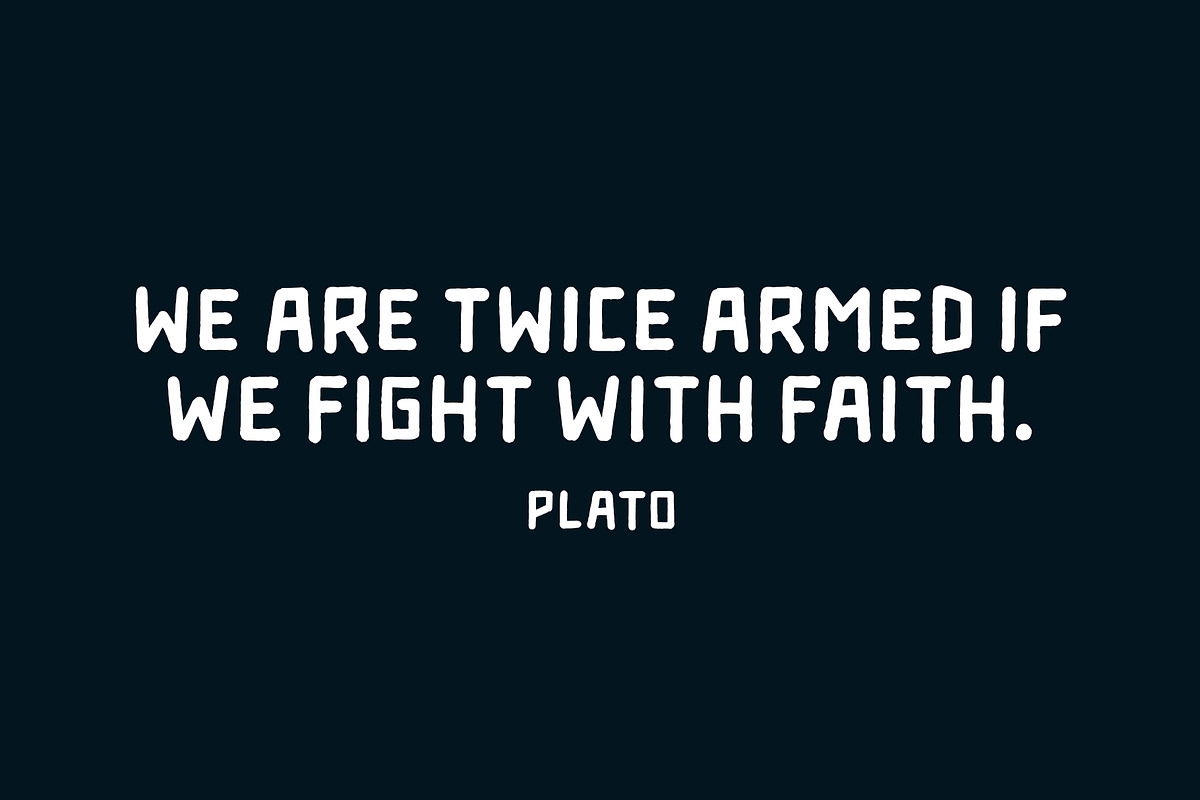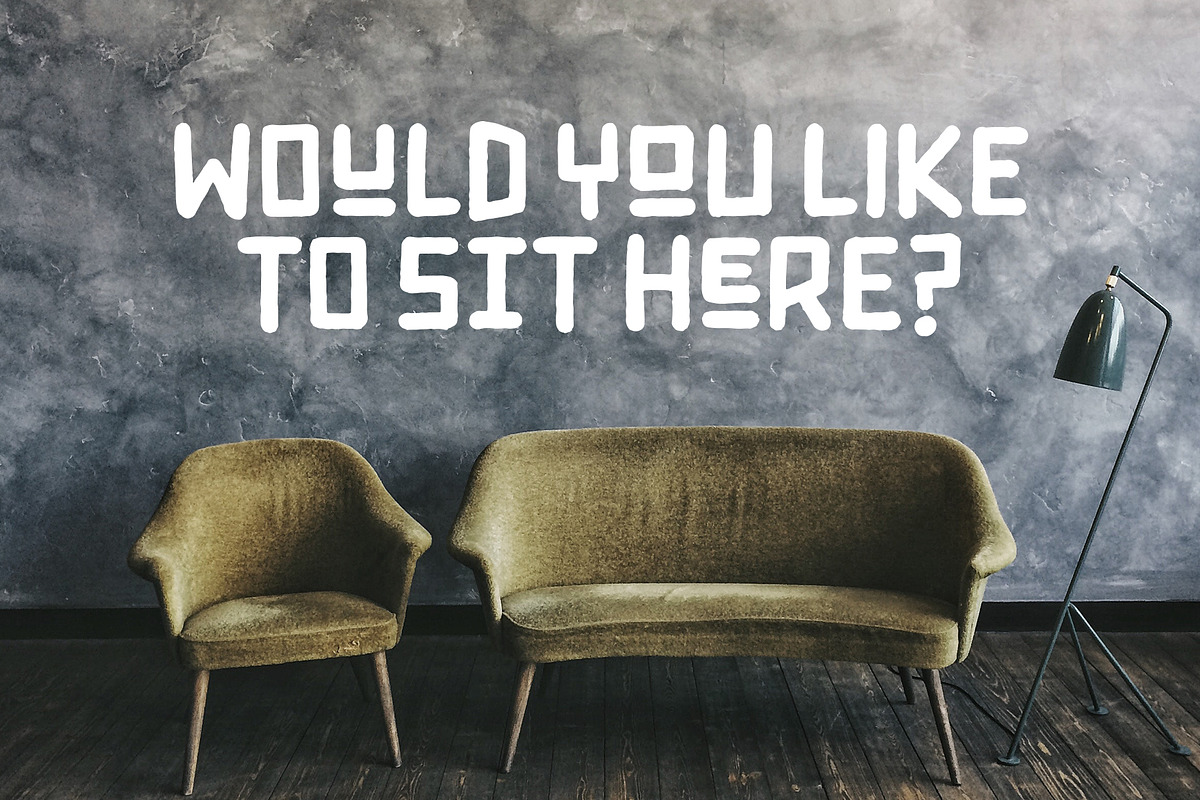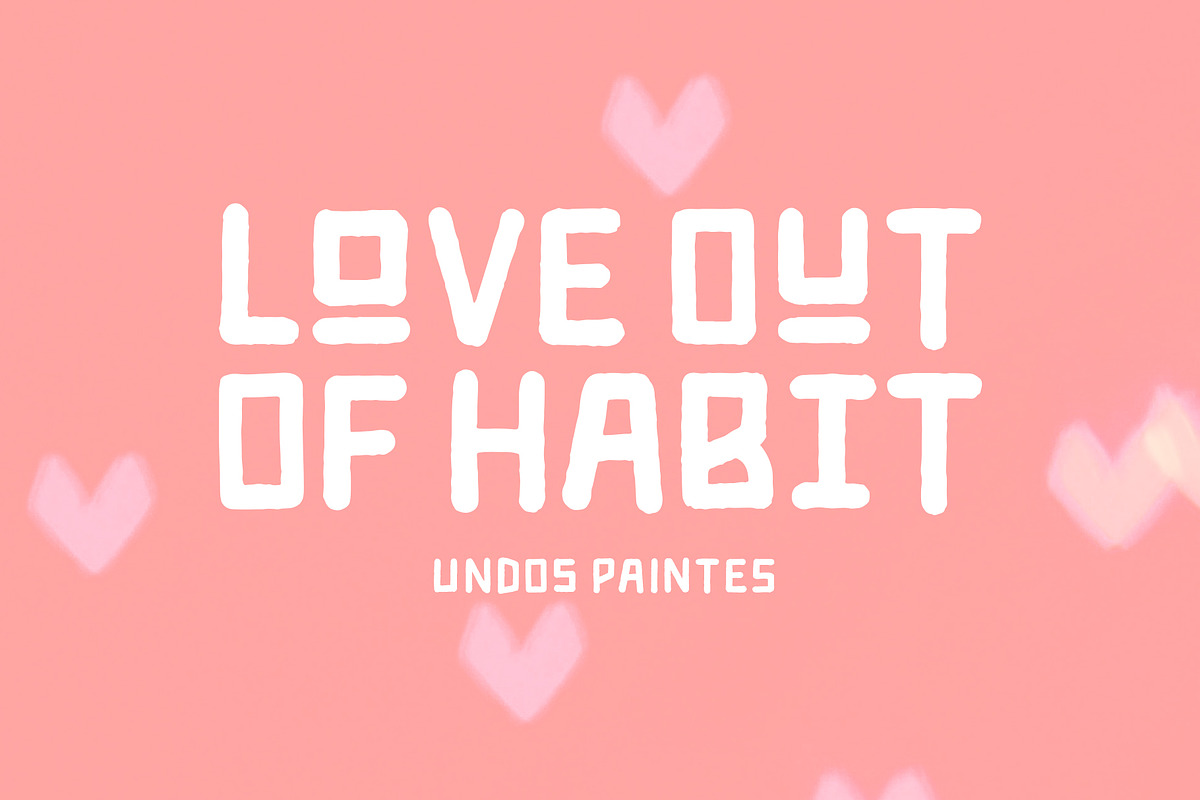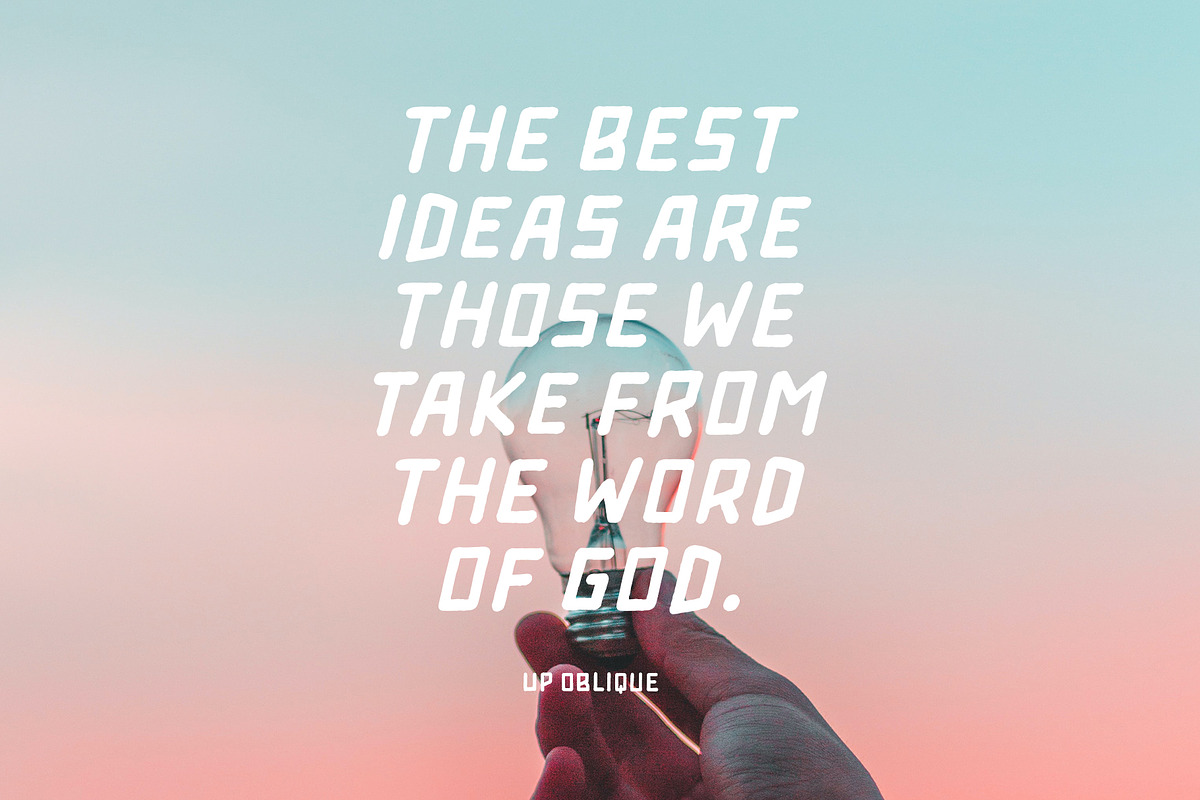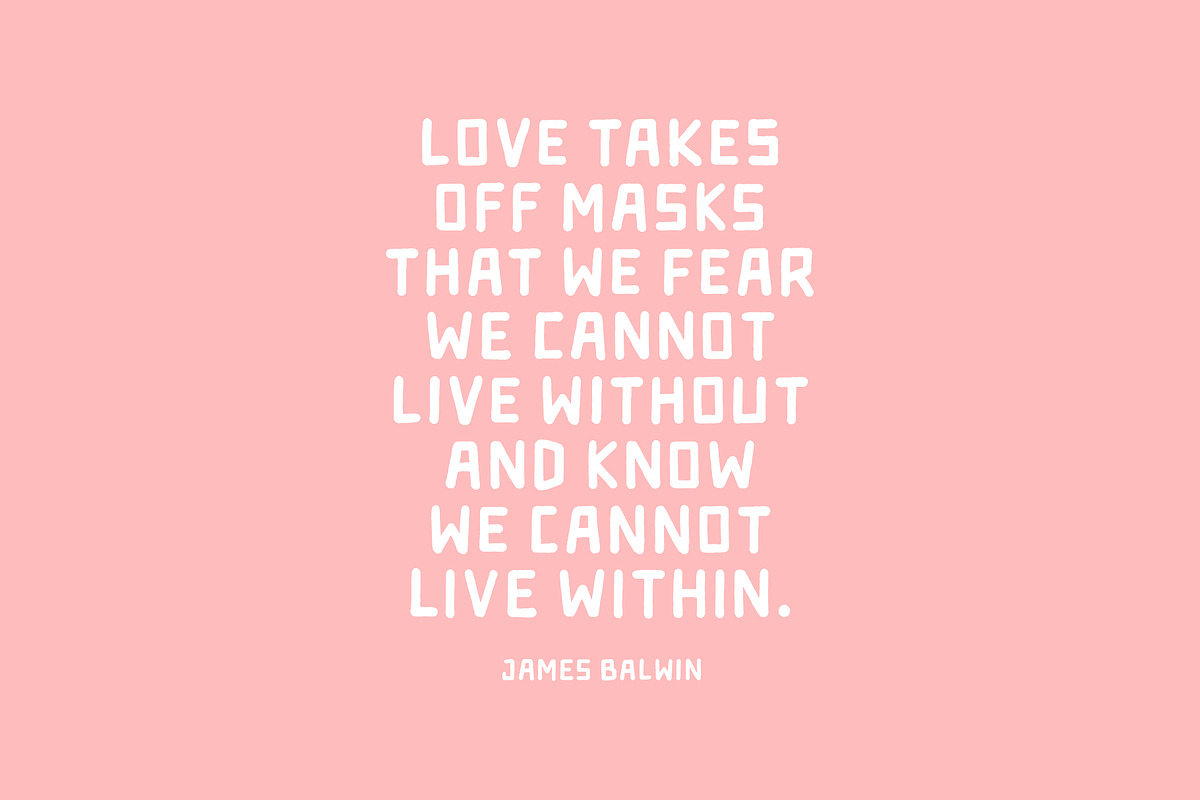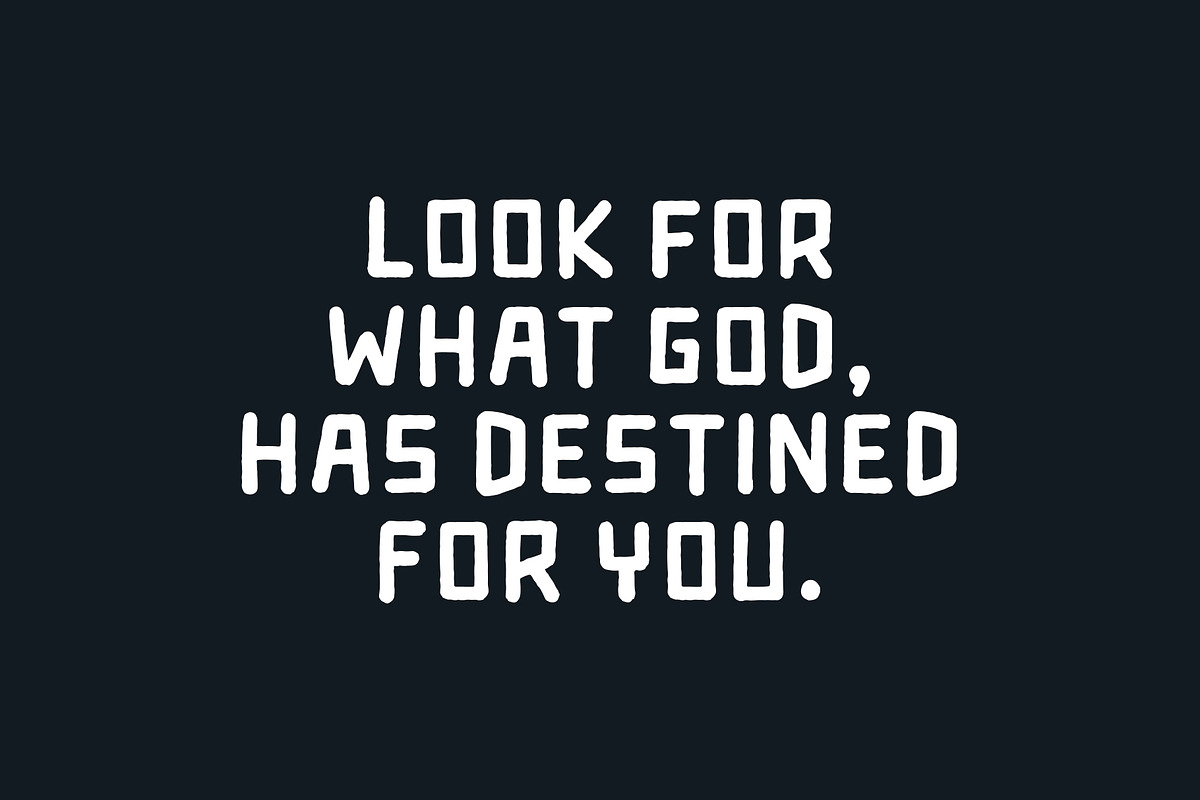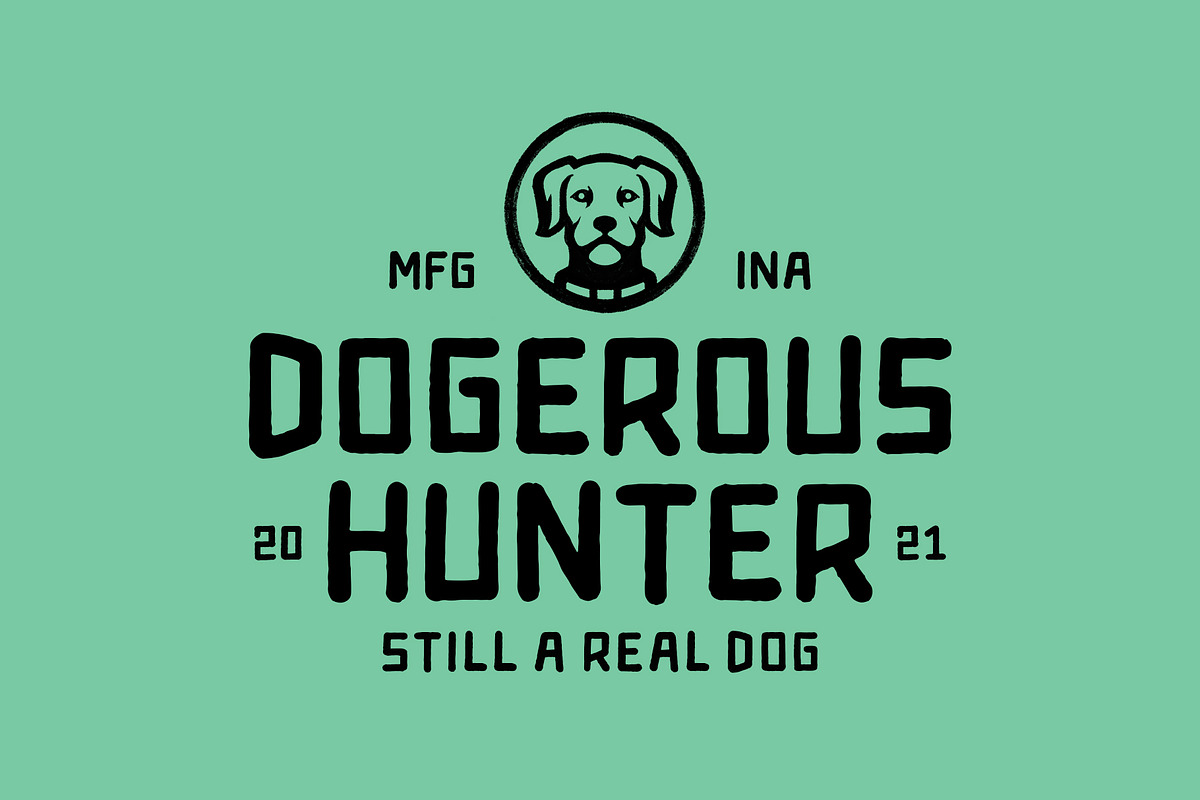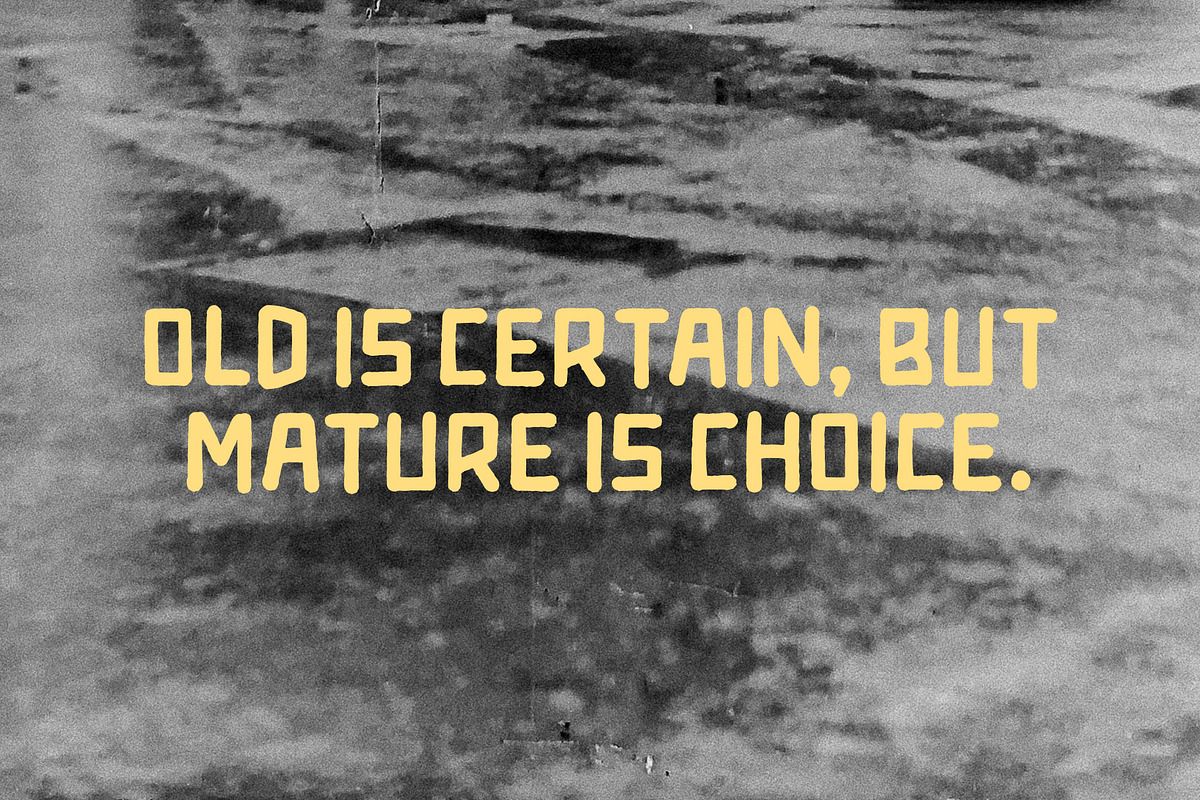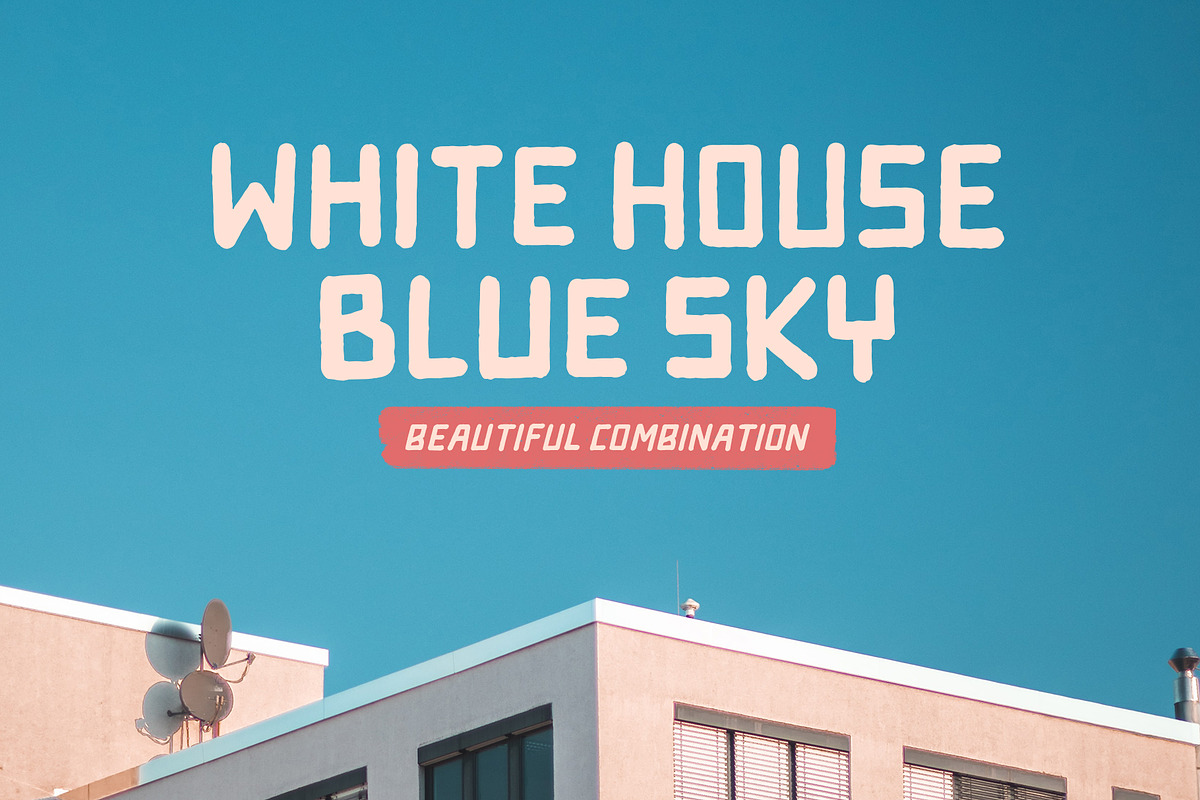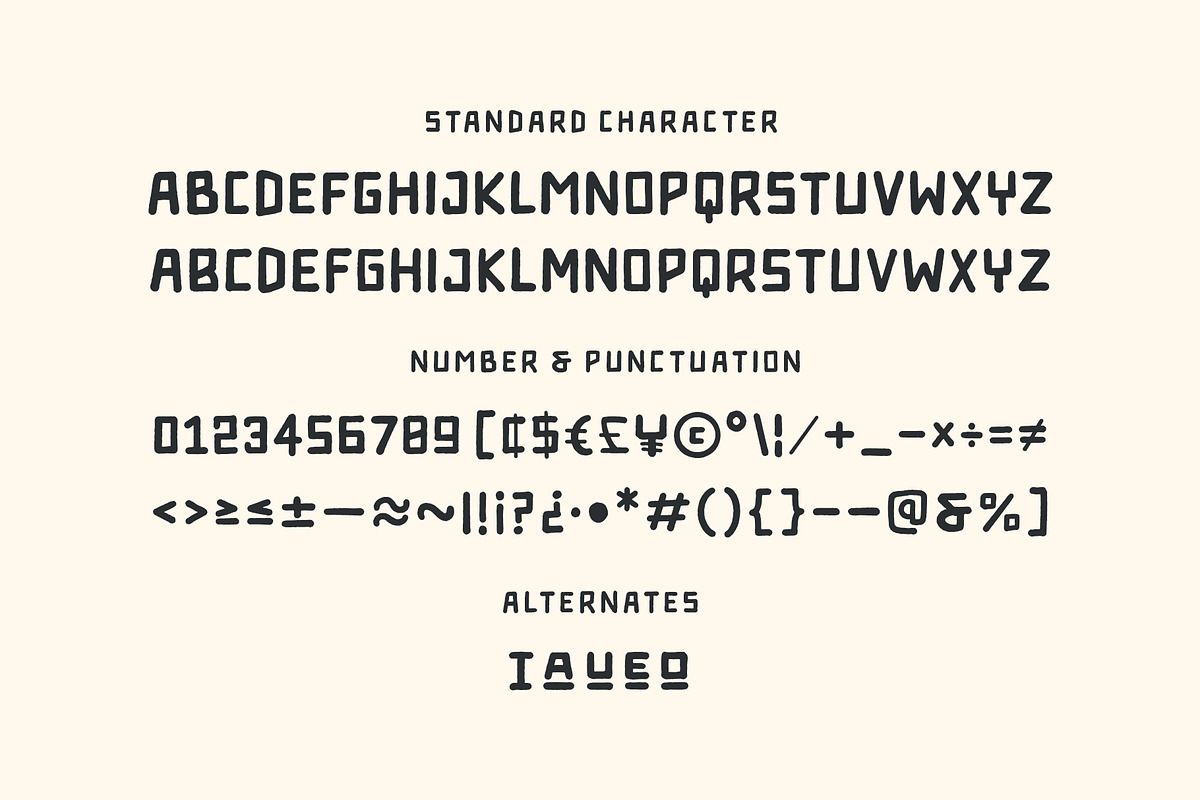
Undos Paintes Font
Undos Paintes is a handwritten font inspired by the industrial feel. Comes in two font styles, regular and oblique. Undos Paintes is suitable for branding, advertising, headlines, and many more.
- Number & punctuation symbols
- Stylistic sets
- International characters (Multilingual)